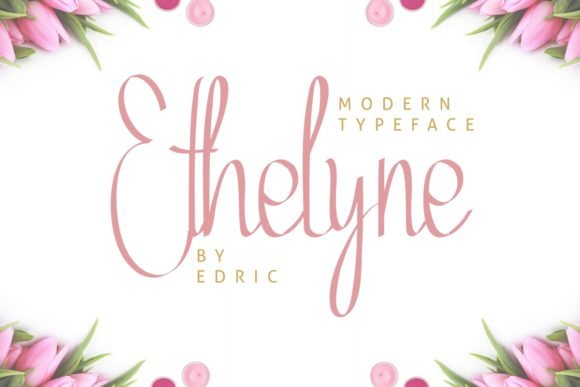
The Perfect Handwritten Touch
Have you ever found yourself scribbling down ideas in a coffee shop, only to realize that the font on your notes is actually the perfect combination of personality and professionalism? For designers, capturing that perfect handwritten touch can be a game-changer. Whether it’s for a brand’s marketing materials or a personal project, the right font can elevate your work and leave a lasting impression.
Enter the Ethelyne Font, a stunning organic handwritten font that’s as versatile as it is beautiful. With multi-language support and a matching italic version, this font is the perfect addition to any designer’s toolkit. Its bold letters and sweet, handwritten feel make it an instant favorite for creatives looking to add a personal touch to their work.
Ethelyne Font Key Features
- Unique Characteristics: Ethelyne Font features a unique blend of modern and vintage elements, with intricate details and subtle textures that add depth and visual interest to any design.
- Language Support: The font supports a wide range of languages, including Latin, Cyrillic, and Greek alphabets, making it suitable for use in multilingual designs.
- Weight and Width: Ethelyne Font is available in a single weight, with a medium width that makes it suitable for use in body text, headings, and titles.
- Font Style: The font has a decorative and elegant style, making it ideal for use in creative and artistic designs, such as invitations, posters, and branding materials.
Designer Review: Ethelyne Font
Overall, I’d say the Ethelyne font is a solid addition to any designer’s toolkit, but it’s not without its quirks. Let’s dive in and explore what works well, what doesn’t, and how it stacks up in the grand scheme of font design.
- Unique, hand-drawn feel that’s perfect for adding a touch of whimsy to your designs
- Well-suited for titles and headings, where a bold, attention-grabbing font is needed
- Works well in both print and digital applications, thanks to its versatility
- May be too ornate or busy for certain design projects, where a clean and minimalist approach is preferred
- Lack of a corresponding italic or oblique font may limit its use in certain contexts
- Some users may find the font’s irregularities or imperfections distracting or difficult to read
In conclusion, the Ethelyne font is a fun and creative option for designers looking to add some personality to their work. While it may not be the best choice for every project, it’s certainly a valuable addition to any font library. With a little bit of care and consideration, the Ethelyne font can be a real showstopper in the right design context.
Practical Application Guide for Ethelyne Font
Tips for Getting the Most Out of Ethelyne Font
Experiment with different font sizes and styles to achieve a unique look. Combine Ethelyne with other fonts to create a visually appealing design. Use it for headings and titles to add emphasis and create a clear hierarchy of information.
Ethelyne font is ideal for creative projects such as logos, branding materials, and advertising campaigns. It’s also suitable for digital design projects, such as website headers and social media graphics.